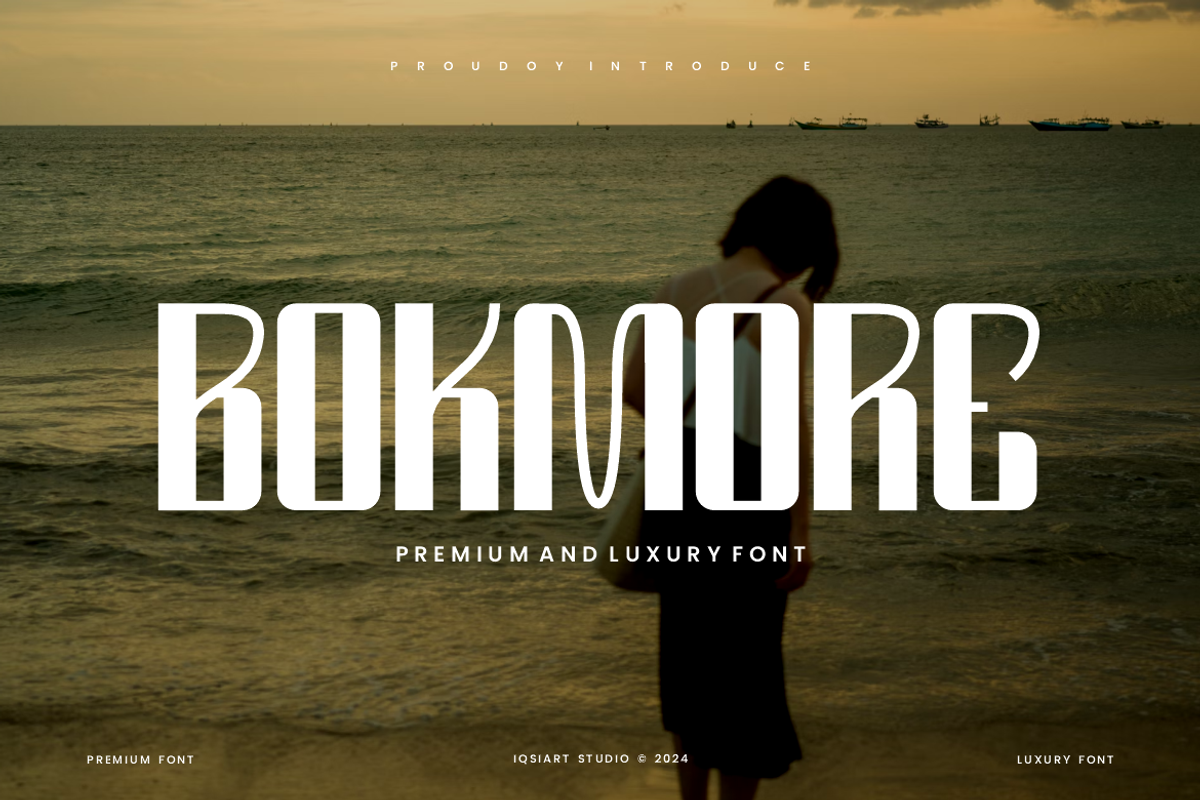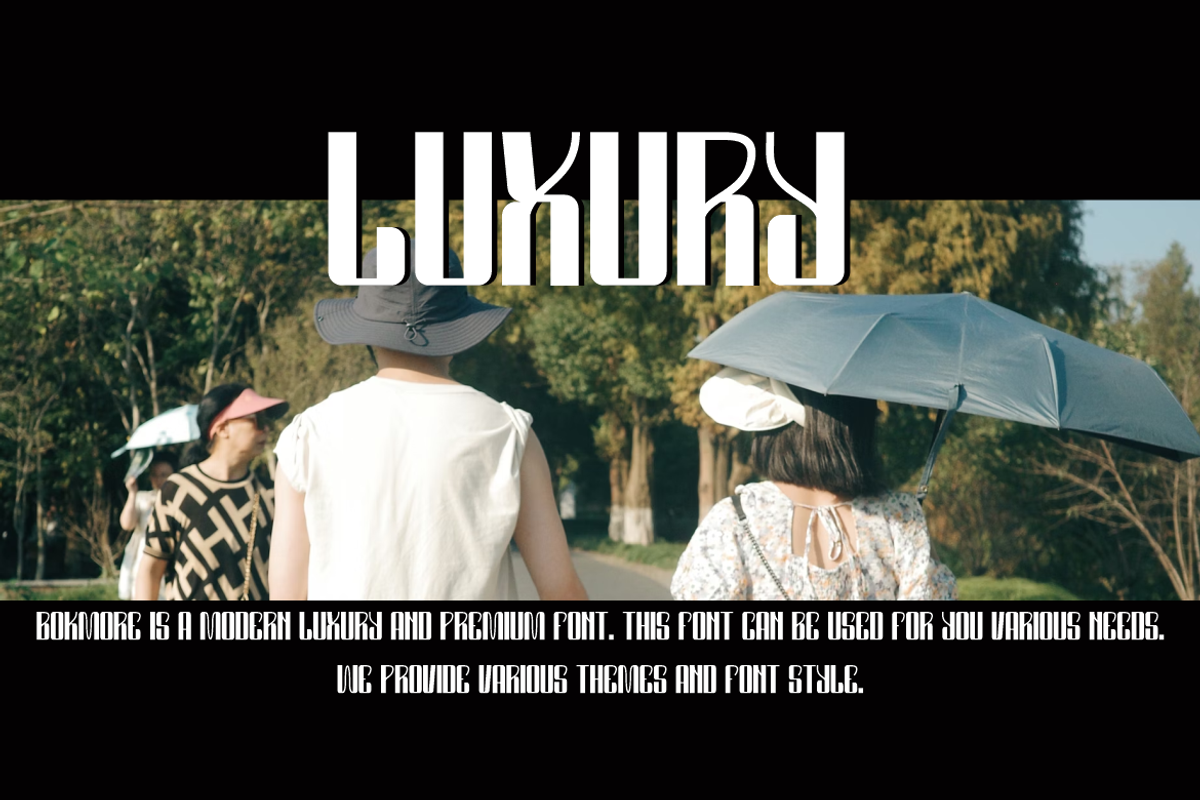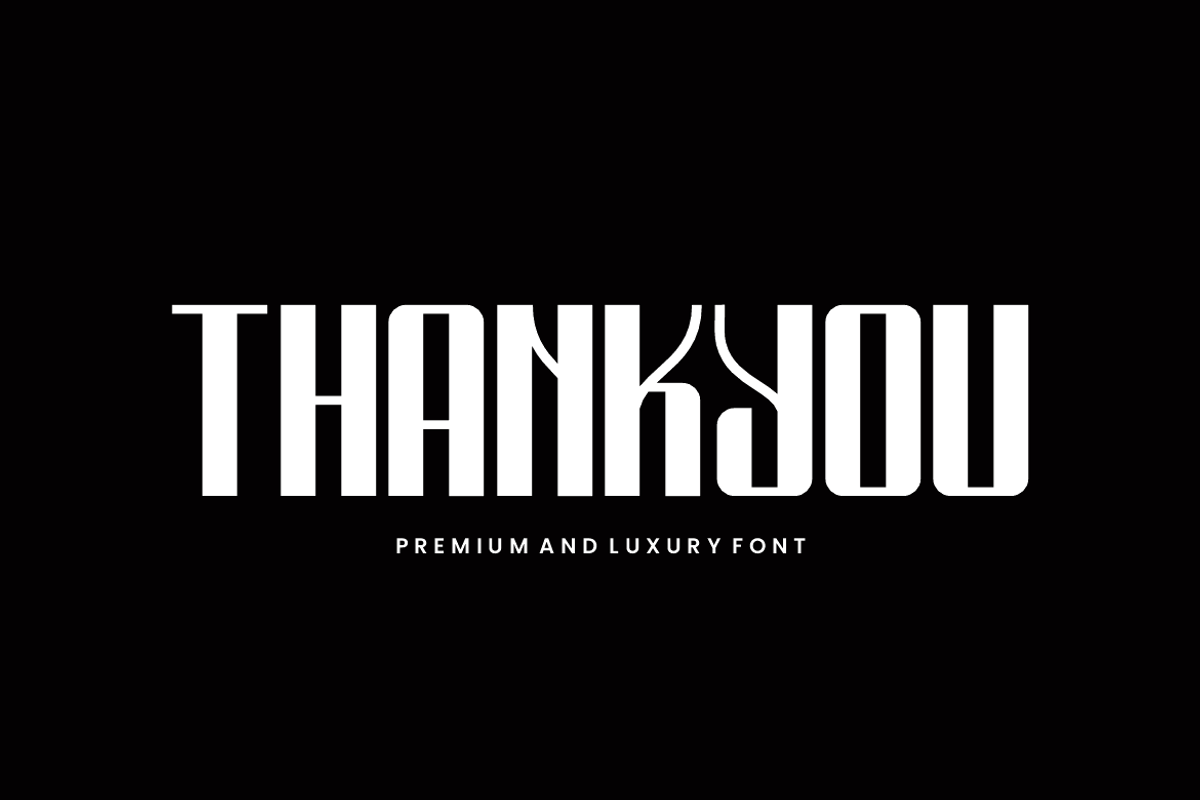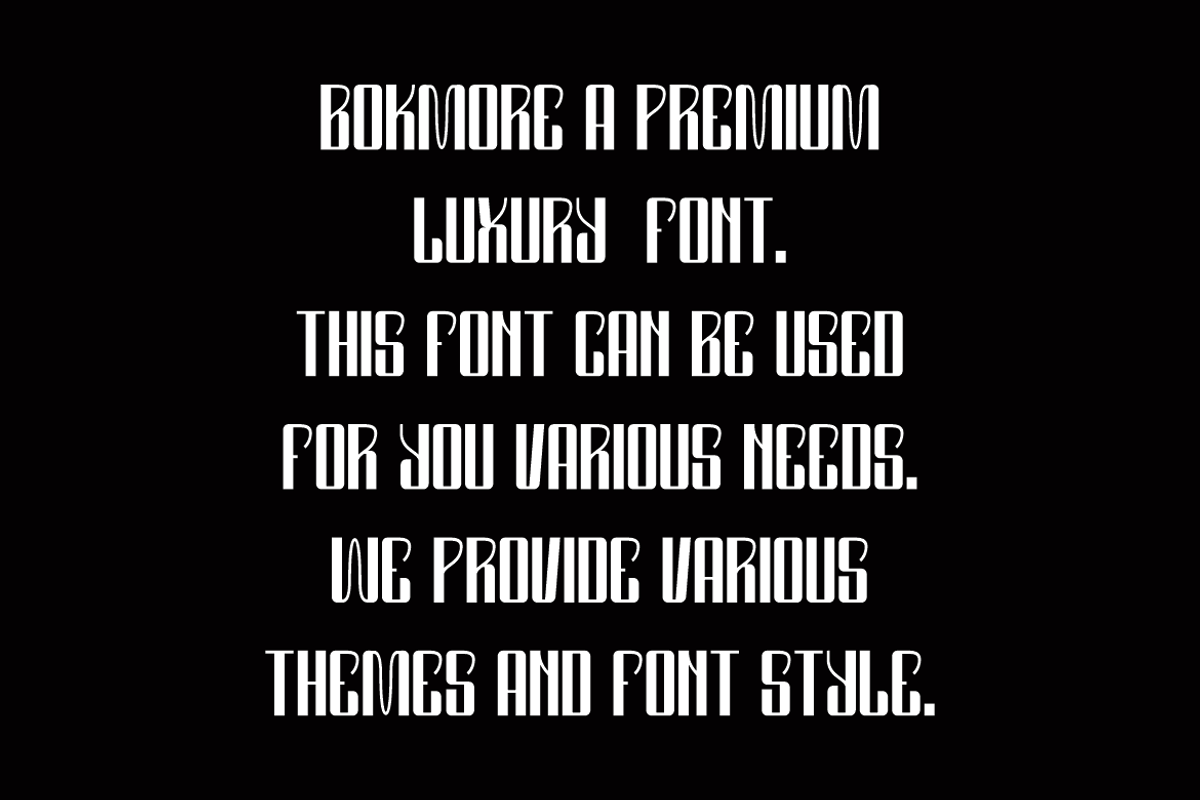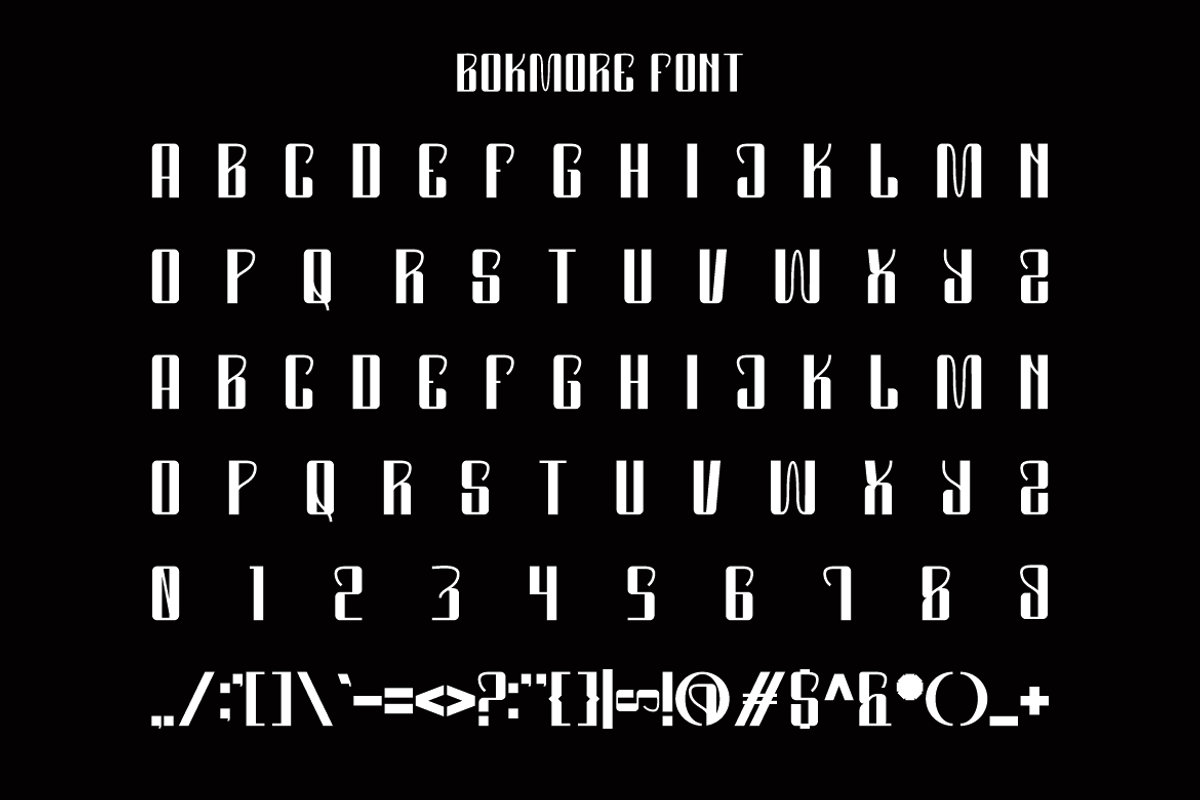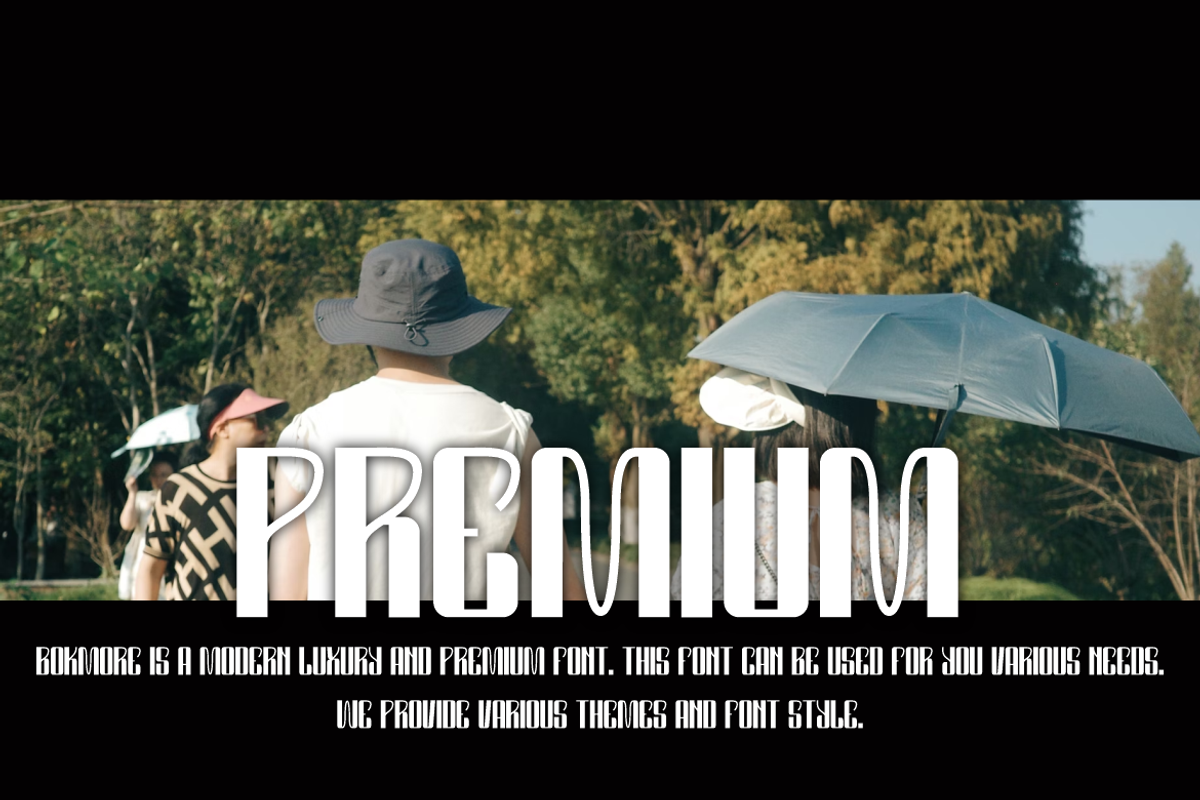
Bokmore - Luxury Bold Font
Bokmore Font is a best and authentic display font. This font can be used for your various needs. We provide various themes and font styles. visit our profile to get a wide variety of themes and different font styles you need.